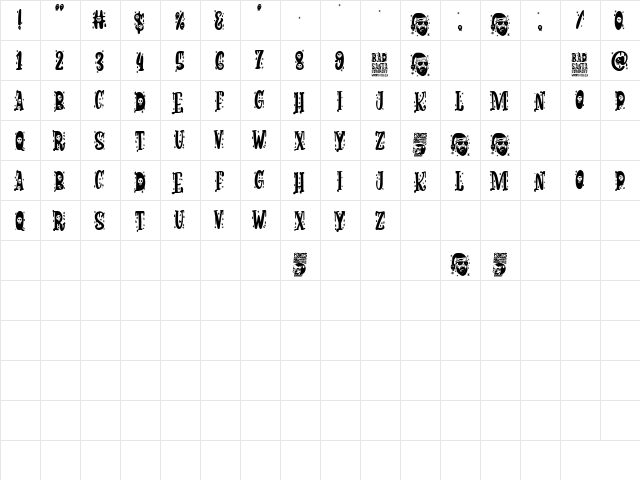
Bad Santa Company Regular
| Designer | Woodcutter Manero |
Design Context for Bad Santa Company Typeface
Bad Santa Company is a composed and adaptable typeface that performs quietly and consistently across a wide range of design contexts.